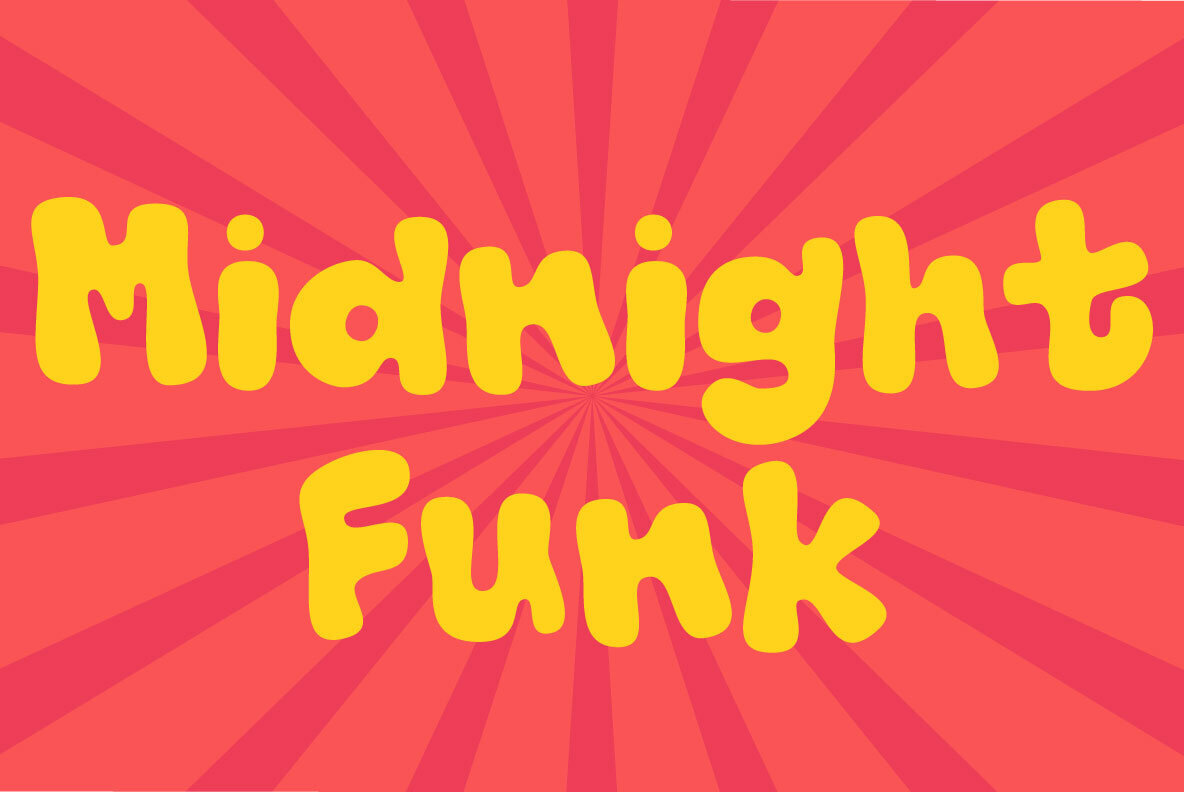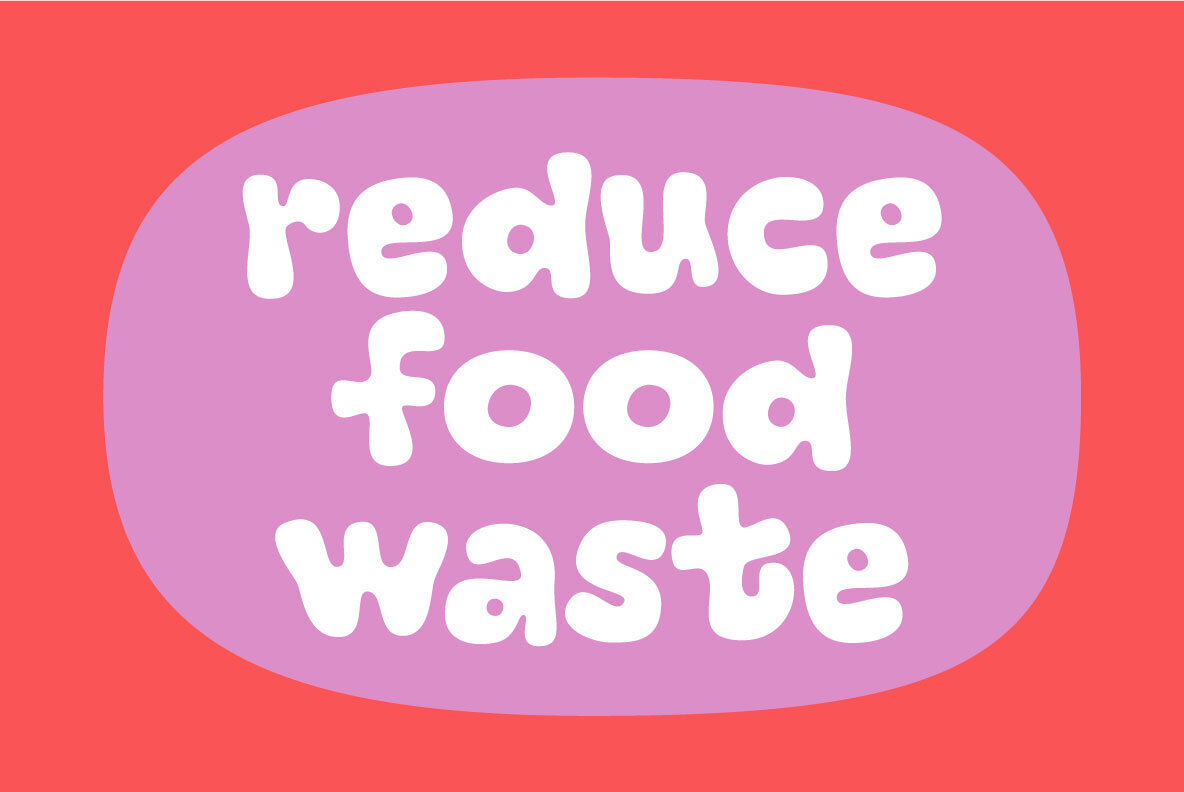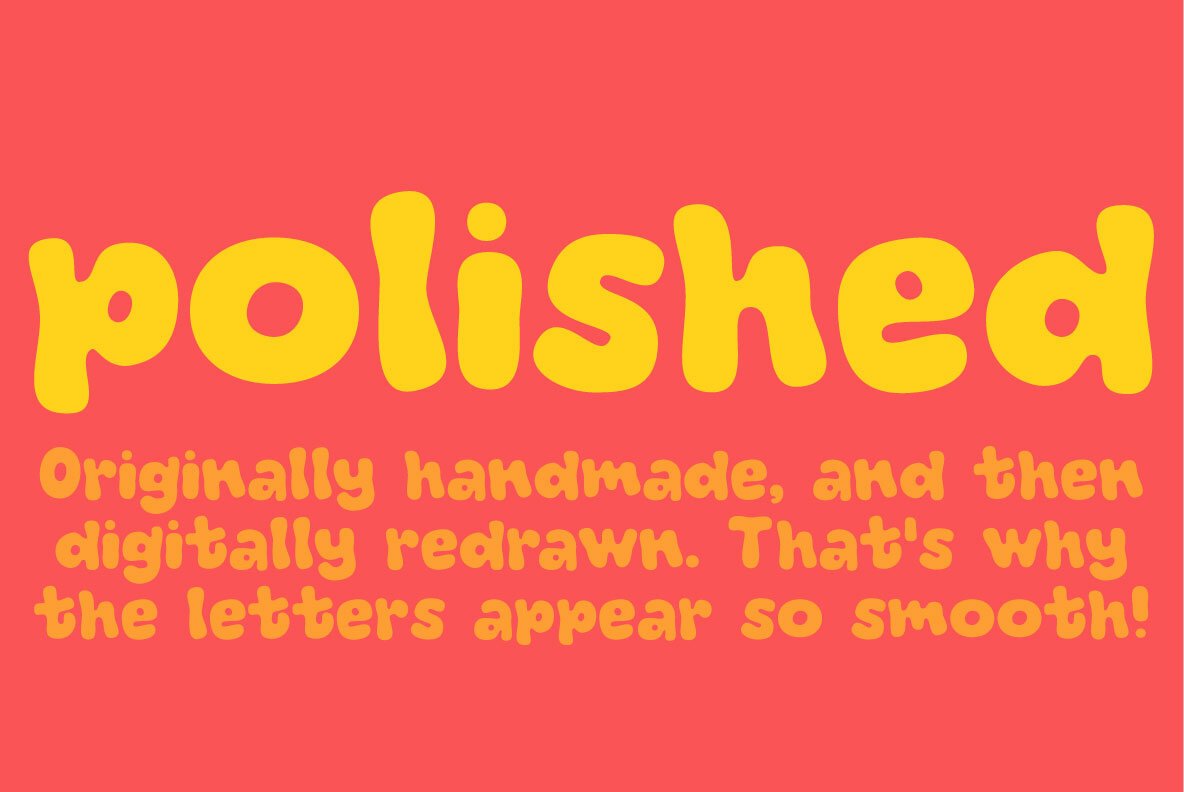
Funkadelity Font
Funkadelity is a funky breed between 60ies poster typography and 80ies grafitti. Maybe even inspired a bit by comic book lettering! Funkadelity wants to burn off the dance floor and show off the fancy dance moves - at the same time, it want to show off the smooth and clean lines of the letters. Originally handdrawn, but I digitally remastered every single letter, leaving the curves smooth and clean!